If you are looking for the best free fonts for Cricut, you came to the right place. Here are the 15 free fonts for Cricut that are perfect for vinyl projects!
Whether you are a beginner or an experienced crafter, using the right Cricut fonts is the key to creating stunning crafts. And yes, it is possible to make unique crafts from free fonts for Cricut!
From Cricut cursive fonts to font pairings, I have covered everything possible to help you create crafts for home decor, weddings, holidays, and many more.
Best Free Fonts For Cricut
1. Nouradilla – Free Script Font for Cricut
Nouradilla is a curly script font that is perfect for so many Cricut crafts! This beautiful free font for Cricut is a fantastic choice for making farmhouse-style wood signs, wedding decor, and Christmas crafts.
Making seasonal decor like fall-themed doormats is so much fun with this font. It’s also easy to personalize any craft with this stunning font.
2. Shelly – Free Cursive Font for Cricut
Shelly is a modern cursive font that will be your new best friend for creating fun crafts! No matter the occasion, this thick and stylish cursive font is perfect for making t-shirts, mugs, tumblers, and tote bags.
3. The Winter – Free Calligraphy Font for Cricut
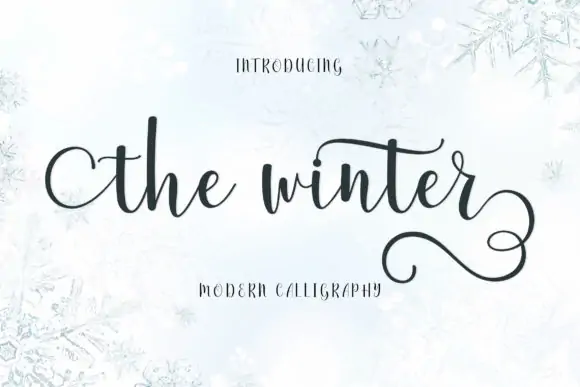
The Winter is a calligraphy font for Cricut with tails. This elegant font adds a beautiful handwritten touch to your projects. Use the font to create wood signs, invitations, wine glasses, matching shirts for weddings, and many more.
4. Cloudy Night – Free Handwriting Font for Cricut
Cloudy Night is a free casual handwriting script font for Cricut that will add a playful touch to your designs. This versatile font is perfect for just about every Cricut project for kids and adults.
5. Amellis Path – Free Wedding Font for Cricut
Making wedding decor and gifts with your Cricut just got easier with the Amellis Path font! This modern brush font is thick and easily cuts vinyl. From personalized tumblers to wood signs for weddings, make stunning designs that are truly worth remembering.
6. Mama – Free Cricut Font with Tails
This list wouldn’t be complete without a Cricut font with tails, and the Mama font is perfect for that! Adding tails to text is a proven way to make crafts extra special.
Designs made from this font look great on wood signs, shirts, tumblers, tote bags, and many more. This font will be your go-to when it comes to personalization.
7. Eva – Free Stencil Font for Cricut
Eva is a free font for Cricut that will add a rustic charm to your crafts. This stencil-style font is a farmhouse lover’s dream come true. It’s a charming and cozy font that will make your seasonal crafts stand out.
8. Short Message – Free Cricut Font Pairing
Short Message is one of the cutest fonts for Cricut! This playful font combination and the bonus doodles are everything you need to create fun crafts easily. The casual and quirky look of the font makes it a perfect choice for making kids’ crafts.
9. Lollipop Melody – Free Christmas Font
Lollipop Melody is the perfect companion font for many of the cursive fonts listed in this article. This sans serif font for Cricut with cute letters is also ideal for making single-word designs for wood signs, gift tags, or personalization. It is a perfect choice for making Christmas-themed designs with your Cricut.
10. Bright Dreams – Best Free Boho Font for Cricut
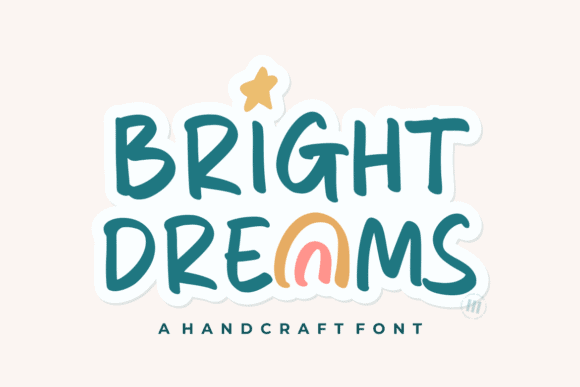
Bright Dreams is a playful font for Cricut with a hand-lettered feel. This stylish display font is perfect for writing funny quotes. The casual handwriting letters of the font make it easy to create quirky designs with a personality.
11. The Most Beautiful Gift – Best Font for Kid’s Designs
The Most Beautiful Gift is a bold, handwritten font that is perfect for making kids’ crafts. The thick letters of the font make it super easy to create designs and cut vinyl easily. The rounded letters add a fun feel to children’s themed designs.
12. Starry Cakes – Best Storybook Font
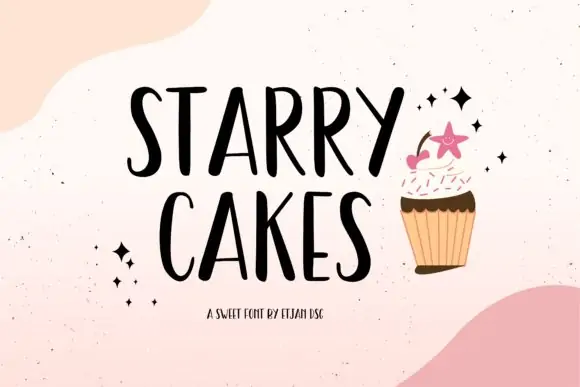
Your search for the perfect storybook font for Cricut ends here! Starry Cakes is a whimsical font with tall letters and a handwriting feel. The varying thickness of the letter lends to the rustic vibe of the font. Perfect for kids’ crafts or any children’s themed designs for home and school.
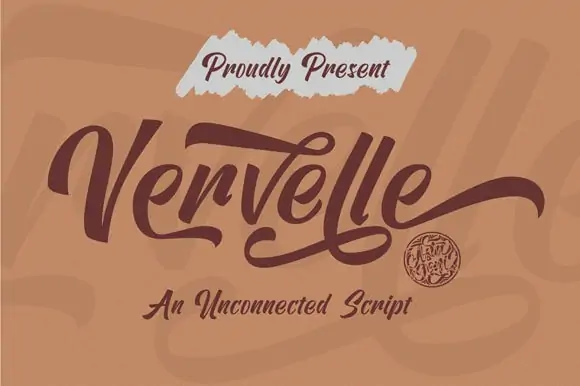
Vervelle is a vintage-inspired font with breathtaking alternates that will help you create truly unique designs. This versatile, thick font is perfect for many Cricut projects – sports-themed apparel, business signs, mugs, tumblers, and many more.
15. Open Heart – Playful Font
Open Heart is a charming and elegant font for Cricut. Don’t let the thin script font deceive you because this cute font cuts vinyl easily. Perfect for adding a feminine touch to your Cricut crafts for weddings, birthdays, baby showers, and the holidays.